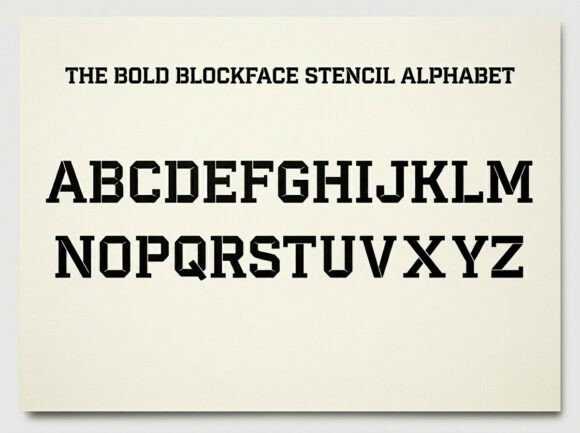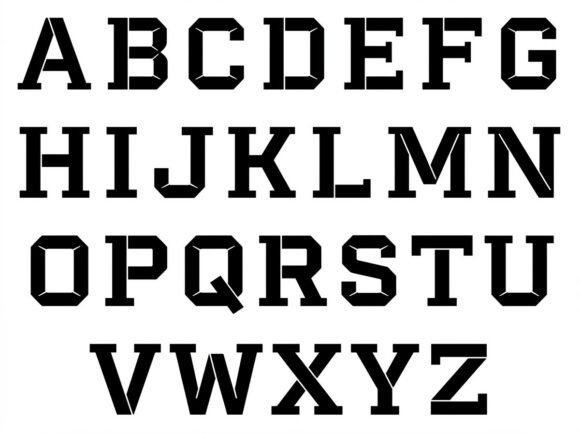
Introducing Felty Font: A Stunning Decorative Display Font
Are you tired of using the same old fonts for your creative projects? Look no further than Felty Font, a unique and artistic display font that’s designed to make a statement. With its strong visual personality and decorative elements, this font is perfect for creators who want to break away from the ordinary and add a touch of elegance to their work.
What Makes Felty Font Special?
Felty Font is a decorative display font that’s specifically designed to be the center of attention. Its unique artistic elements and strong visual personality make it perfect for bold headlines, artistic logos, and creative packaging. Whether you’re a designer, craftsperson, or DIY enthusiast, this font is sure to elevate your work and give it a professional and polished finish.
Key Features of Felty Font
- Unique Artistic Elements: Felty Font features unique artistic elements that set it apart from other fonts. Each letter is carefully crafted to create a visually stunning effect that’s sure to grab attention.
- Strong Visual Personality: This font has a strong visual personality that’s perfect for making a statement. Whether you’re creating a bold headline or a decorative logo, Felty Font is sure to deliver.
- Versatile: Despite its decorative nature, Felty Font is versatile enough to be used for a variety of creative projects, from bold headlines and artistic logos to creative packaging.
- Professional and Polished Finish: This font is designed to give your work a professional and polished finish, making it perfect for creators who want to take their projects to the next level.
Important Note: All-Caps Display Typeface
IMPORTANT NOTE BEFORE PURCHASE: Felty Font is an ALL-CAPS (Uppercase Only) display typeface. This means that it does not include lowercase letters. It’s specifically designed for high-impact headlines, logos, and decorative initials where every letter is a work of art.
Why Choose Felty Font?
There are many reasons why Felty Font is a great choice for designers and crafters:
- Unique and Eye-Catching: This font is sure to grab attention and make your work stand out from the crowd.
- High-Quality Design: Felty Font is designed to a high standard, with careful attention to detail and a focus on creating a visually stunning effect.
- Versatile: This font can be used for a variety of creative projects, from bold headlines and artistic logos to creative packaging.
- Professional and Polished Finish: Felty Font is designed to give your work a professional and polished finish, making it perfect for creators who want to take their projects to the next level.
Felty Font is a stunning decorative display font that’s perfect for creators who want to make a statement. With its unique artistic elements, strong visual personality, and versatile design, this font is sure to elevate your work and give it a professional and polished finish. Whether you’re a designer, craftsperson, or DIY enthusiast, Felty Font is a great choice for anyone looking to add a touch of elegance to their creative projects.